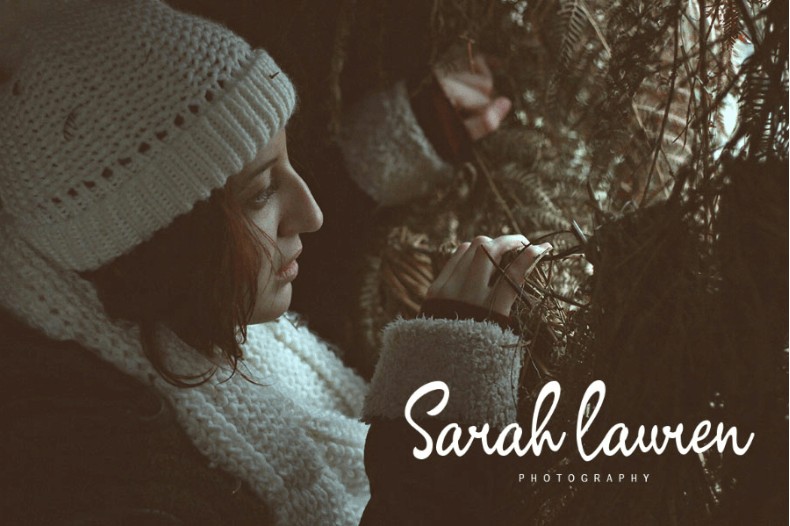
Introducing Signature Script Font Family. An amazing script font which is perfect for creating ebook covers, logos for customers. This is the font designed by Typefoundry.
Greeting the brand new day! Start with a brand new handwriting, it's going to make your paintings greater innovative! Presenting signature script font!